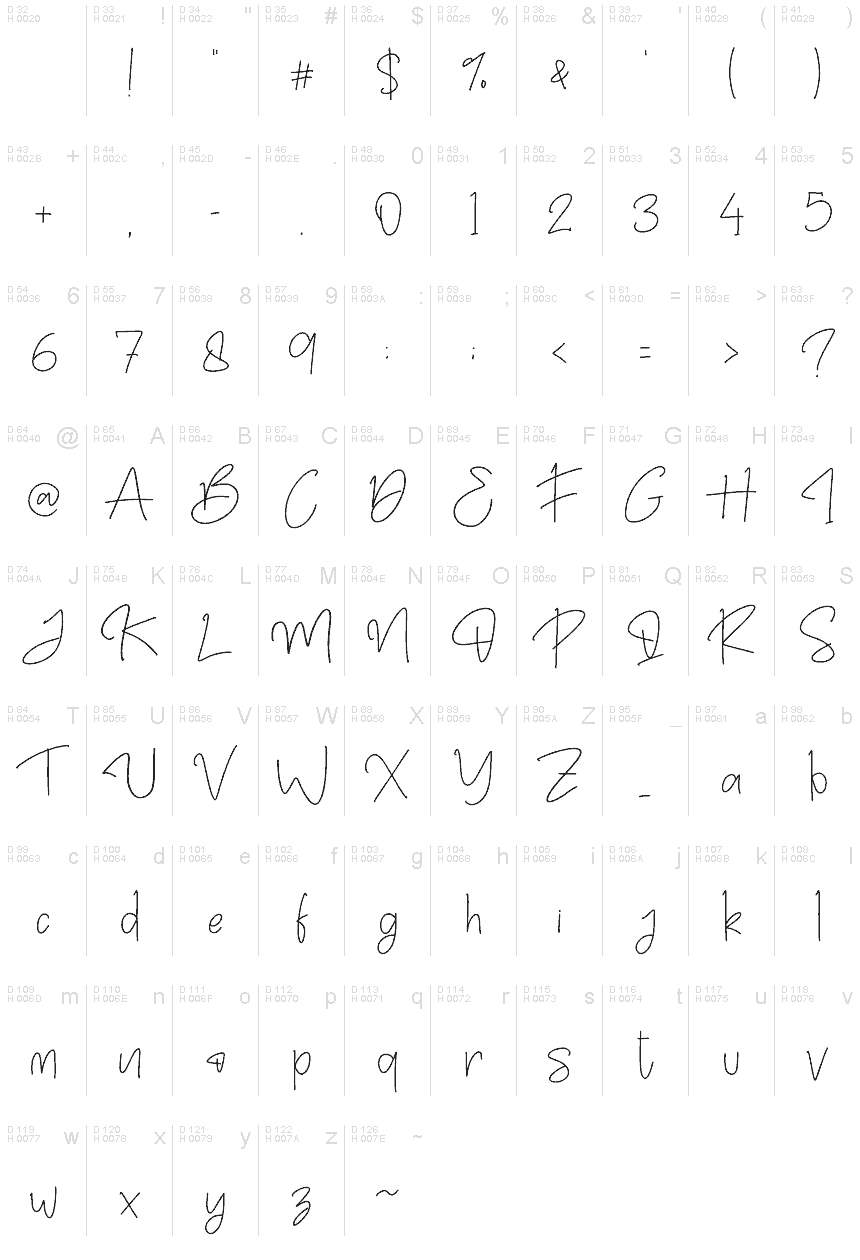
Rollanisa Regular
Rollanisa font by Letterafa Studio is a light handwritten typeface that embodies casual, signature style with an organic flow. It carries a contemporary flair and imparts a personal touch to any text, making it perfect for adding character to your design projects.
This free handwritten font can be used in branding, logo design, invitations, apparel designs, website headers, social media graphics, packaging designs, greeting cards, signage projects or posters. Other appropriate options include craft fairs or special event decor as it easily draws the eye and highlights information.